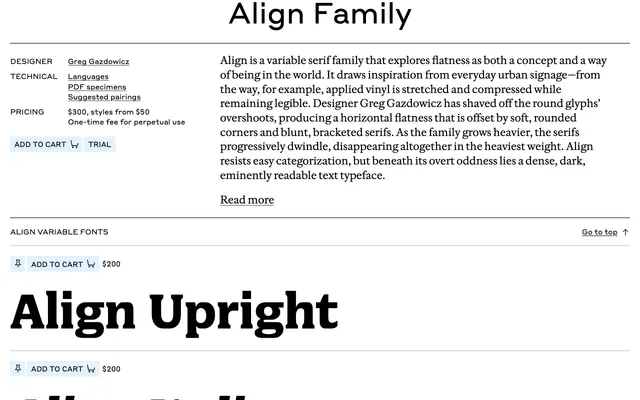
Align
A variable text serif by Greg Gazdowicz built around flatness, with shaved overshoots and serifs that fade out as weight grows.
A variable serif by Greg Gazdowicz that takes urban signage as a cue, particularly the way applied vinyl stretches and compresses while staying readable. Round glyphs have their overshoots shaved off, producing a horizontal flatness offset by soft, rounded corners and blunt bracketed serifs. As weight increases the serifs progressively dwindle and disappear entirely at the heaviest weight. Sits between text and display, dense and dark but built to read at length.
A variable serif family that explores flatness, with shaved overshoots, soft rounded corners and blunt bracketed serifs that dwindle as weight increases. The heaviest weight loses serifs entirely.